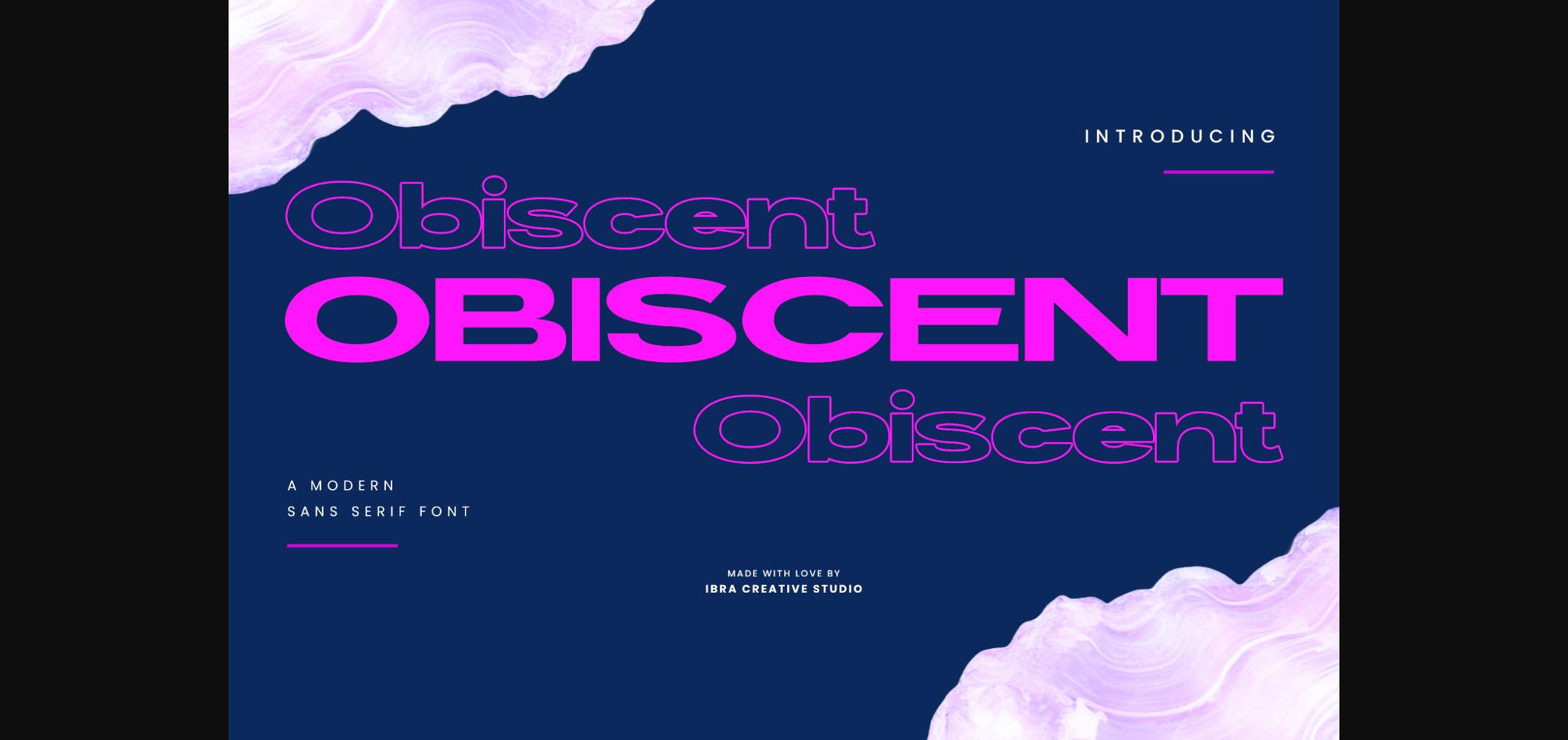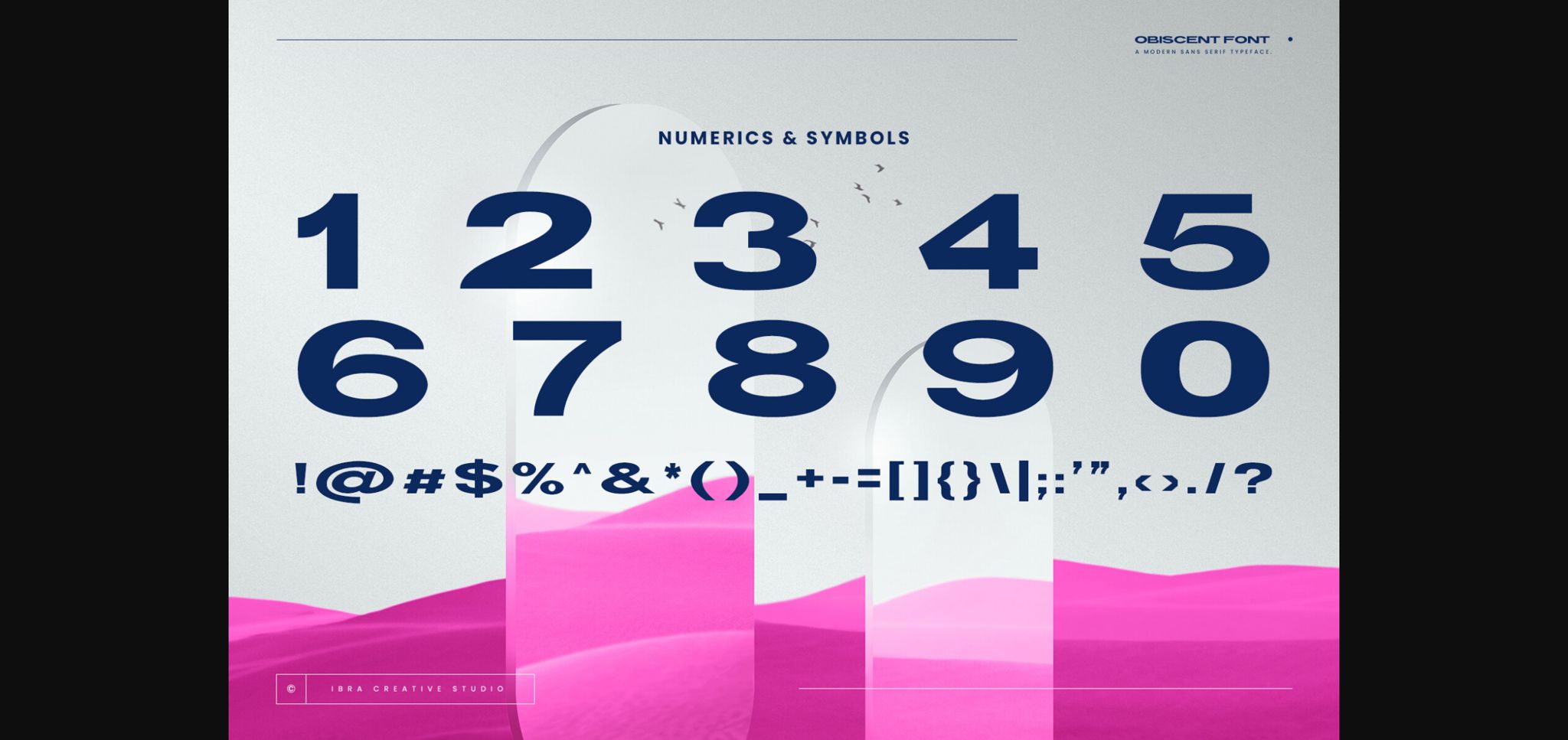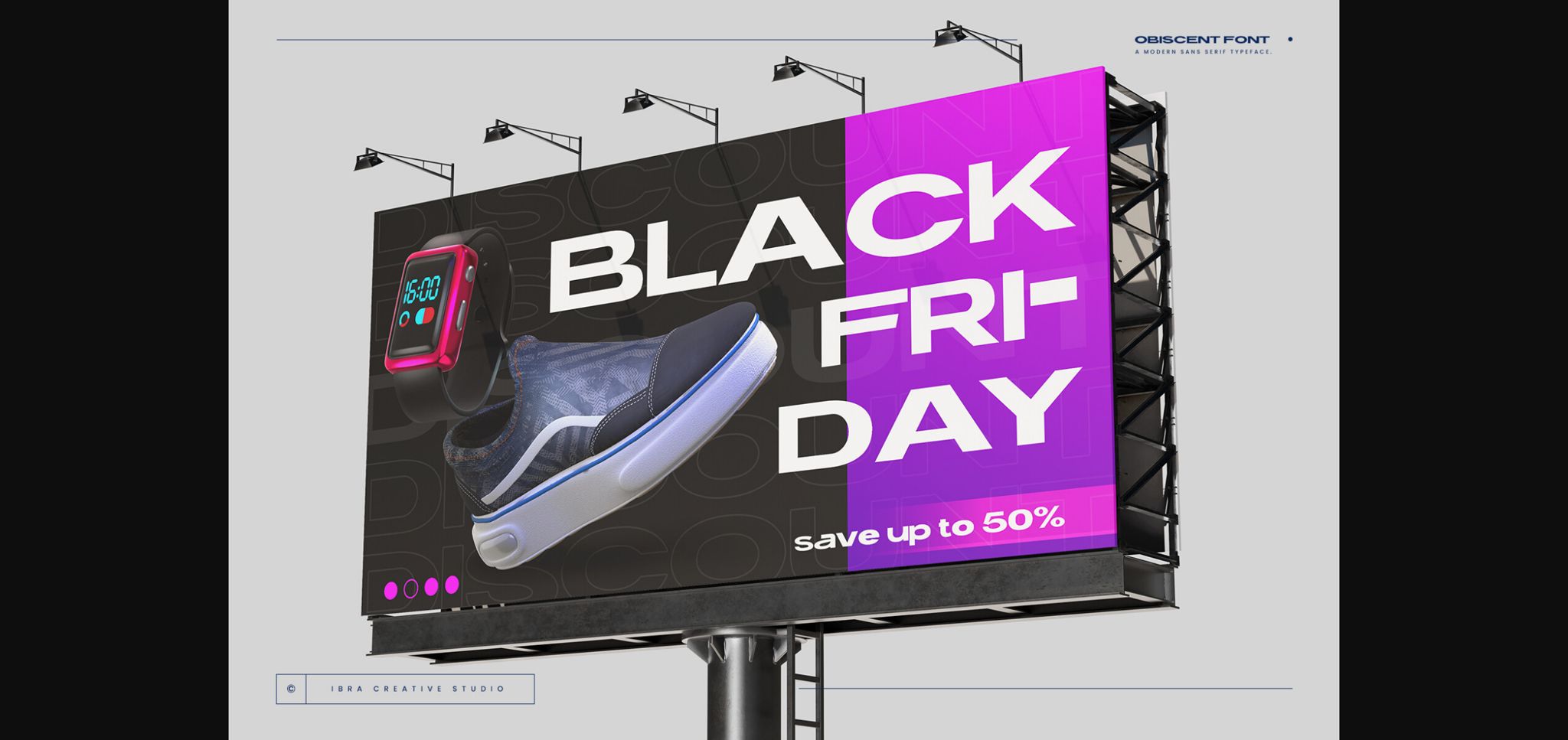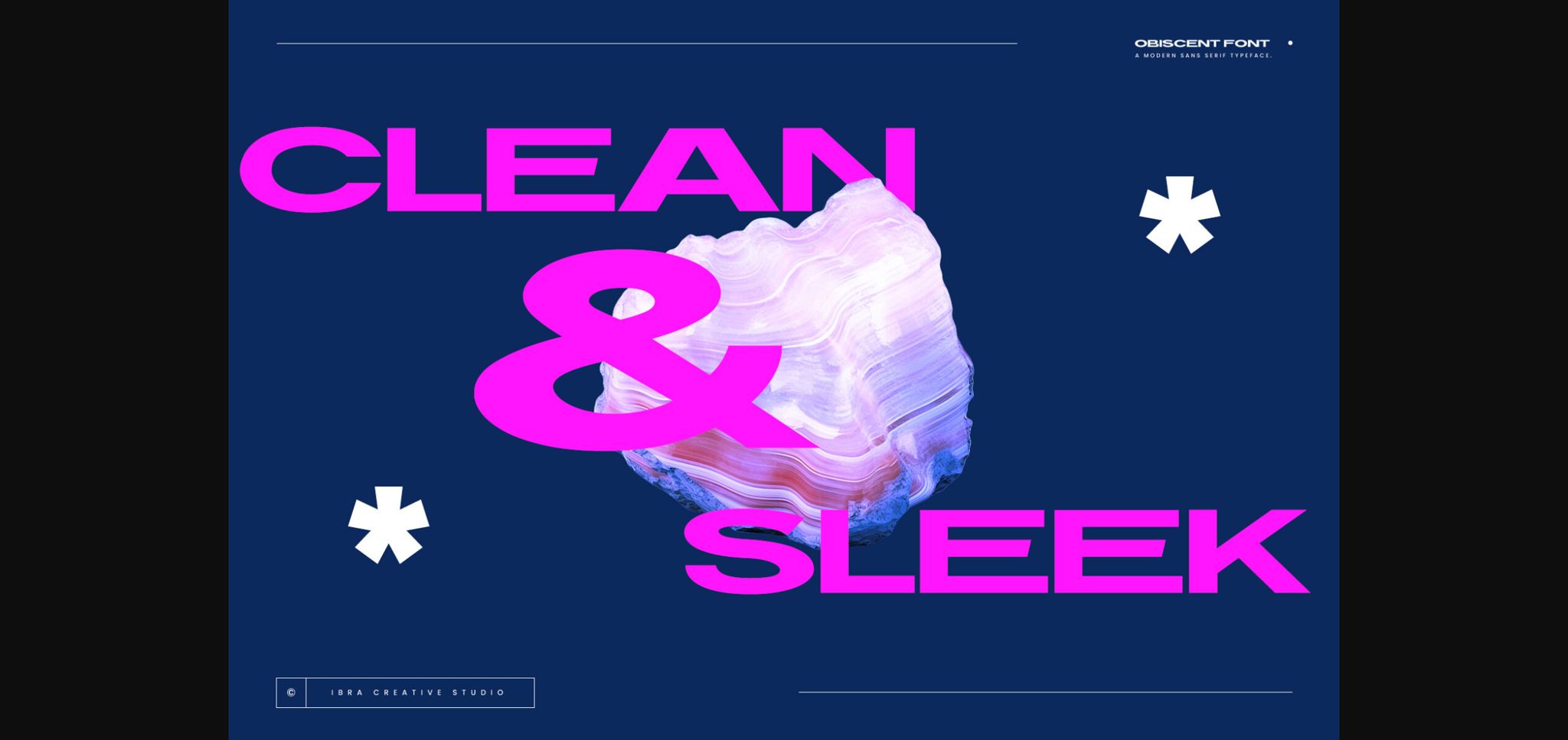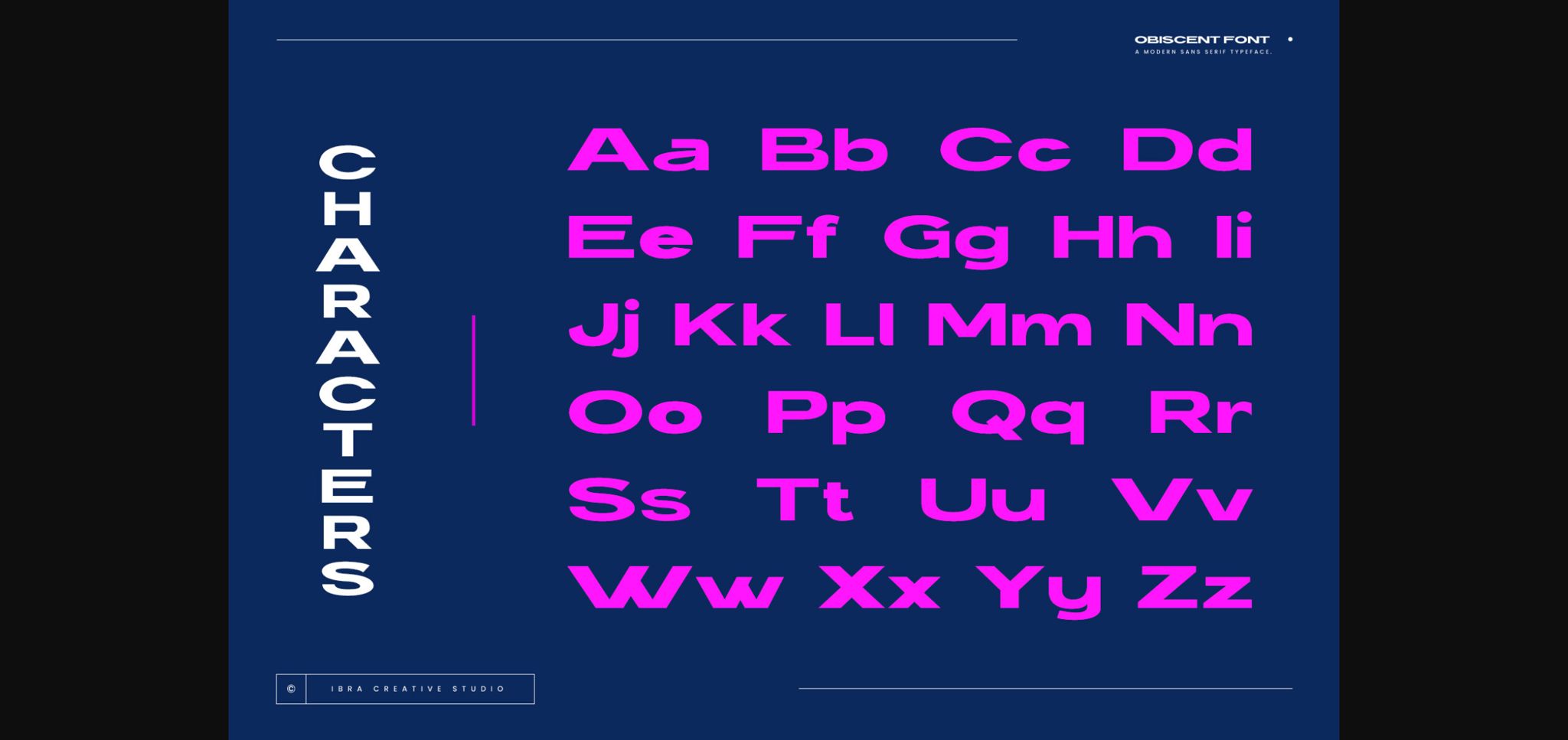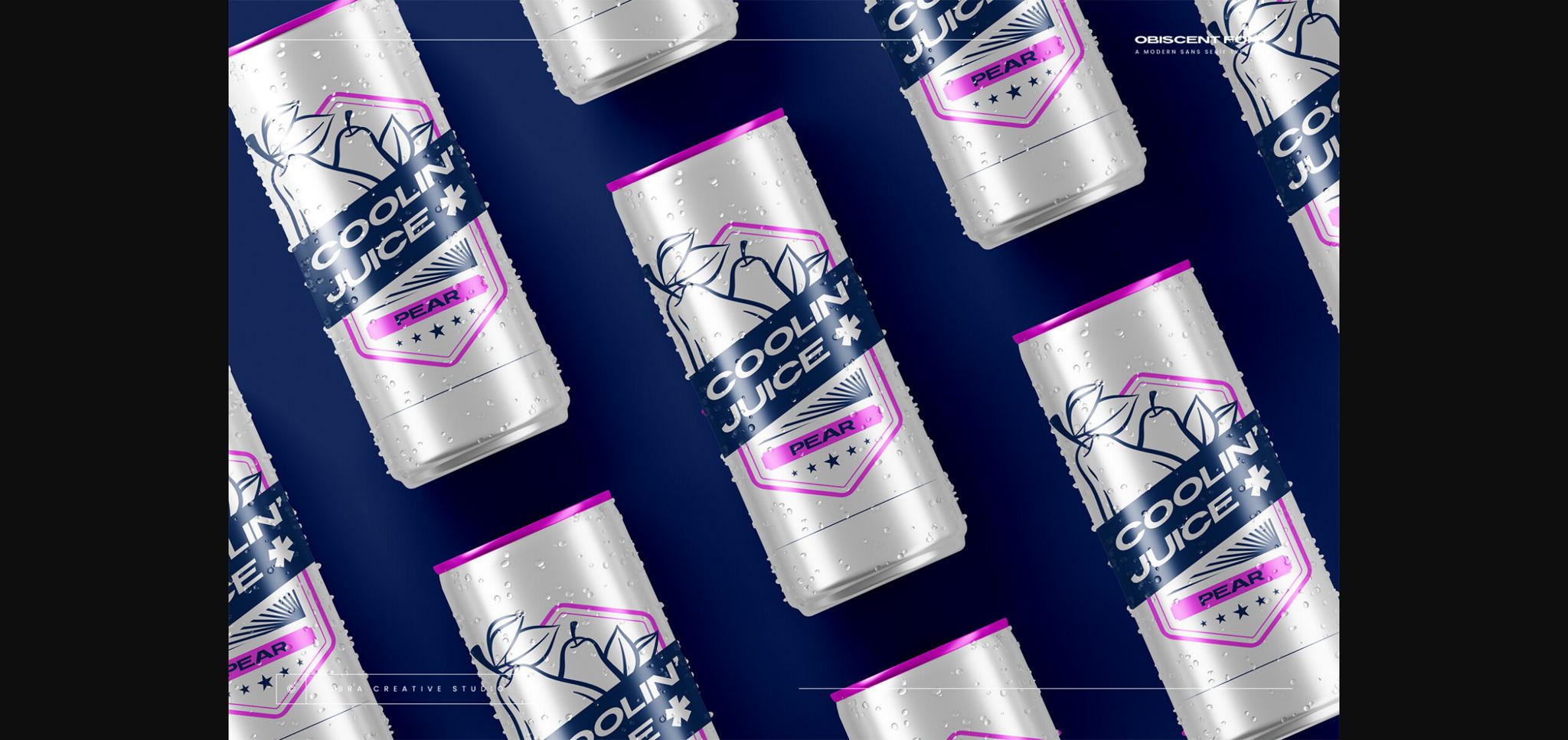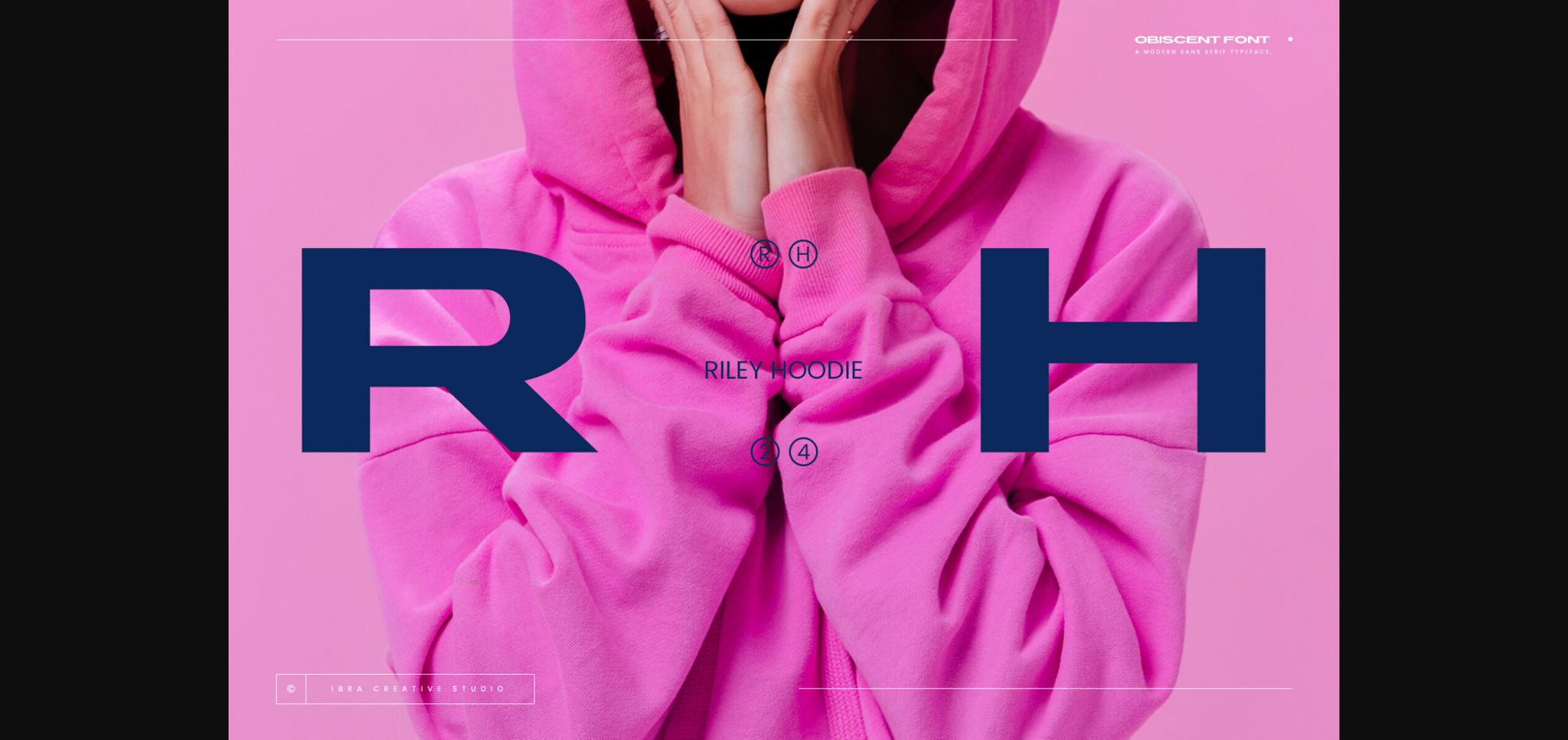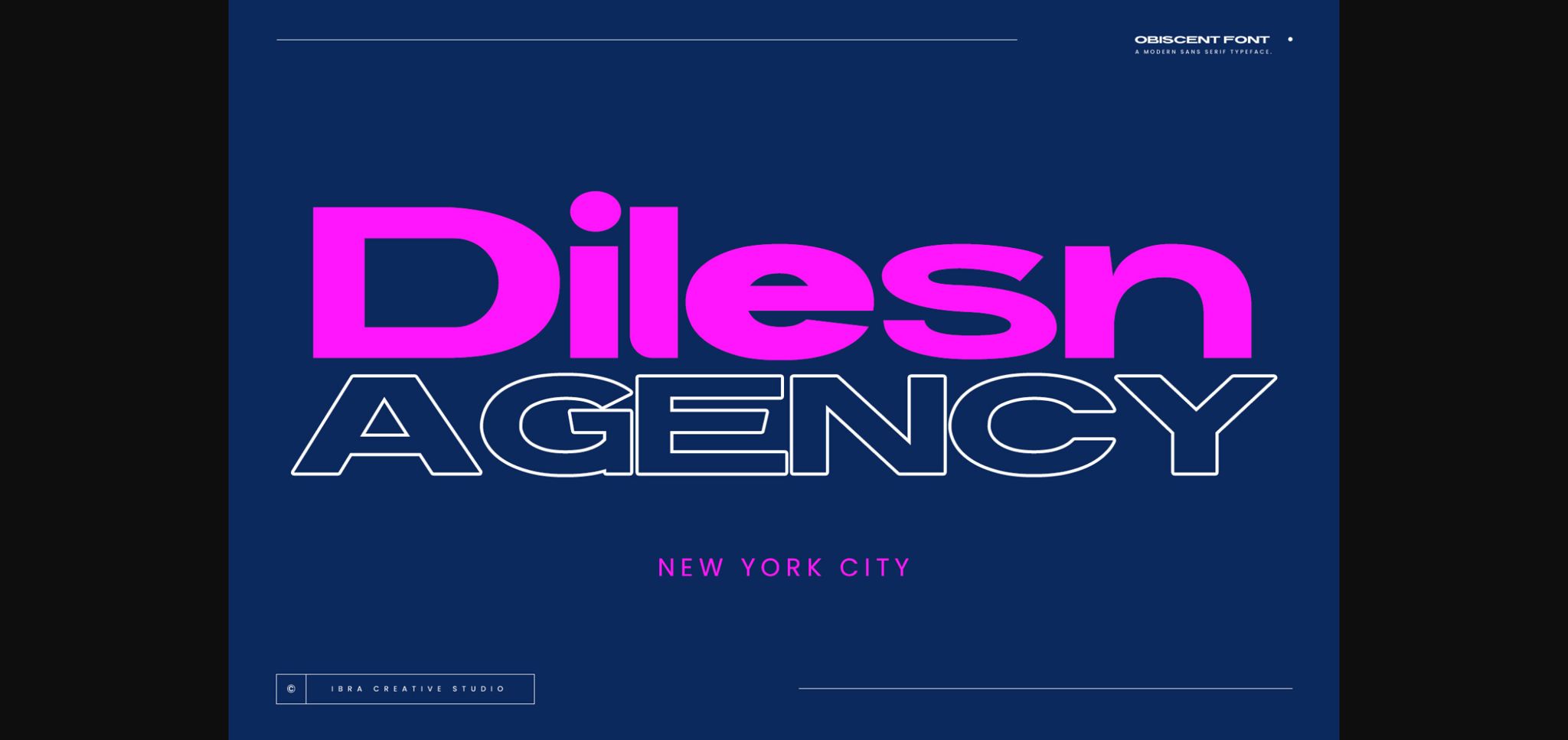
Obiscent Font
About Obiscent Font
Obiscent, a modern sans-serif typeface, epitomizes contemporary design with its clean and sleek aesthetic. Its precise geometric shapes and balanced proportions contribute to a sense of sophistication, making it versatile for a wide range of applications. The typeface seamlessly blends simplicity and elegance, enhancing readability across various mediums while maintaining a distinct visual identity.